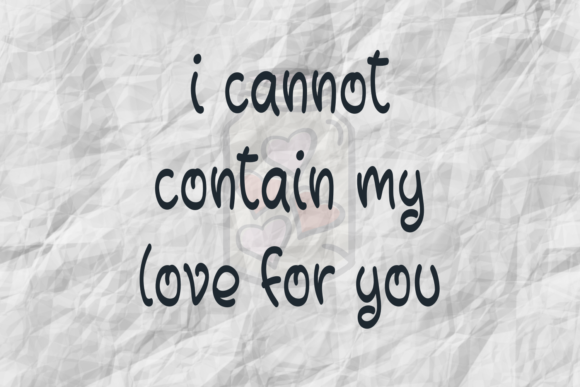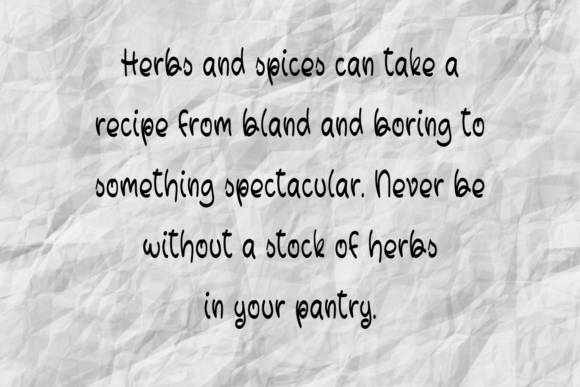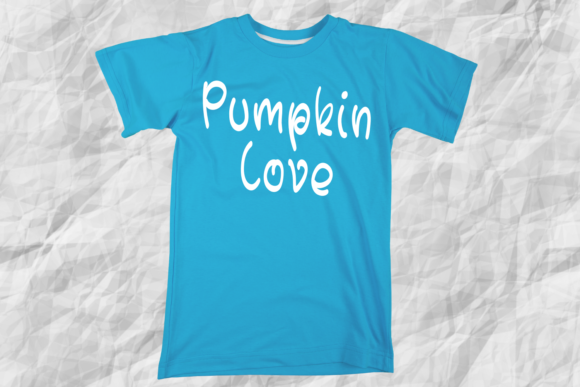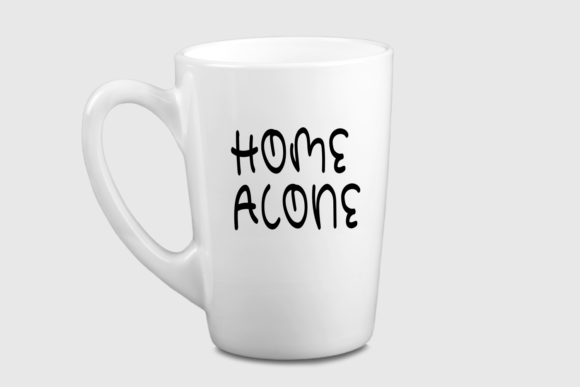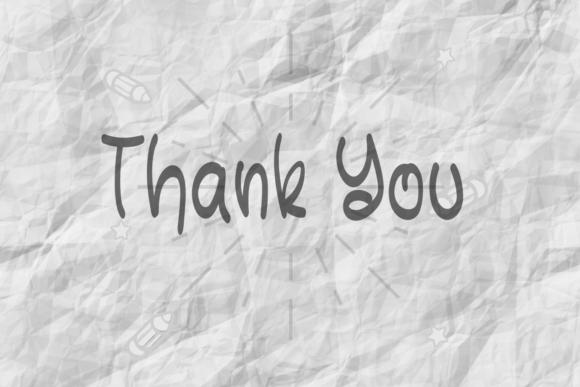
Introduction to Halumoon Font
Halumoon is a simple and natural handwritten font.
Dainty and joyful, this font will be ideal for writing thank you cards or any other design that may need a sweet, personalized touch .